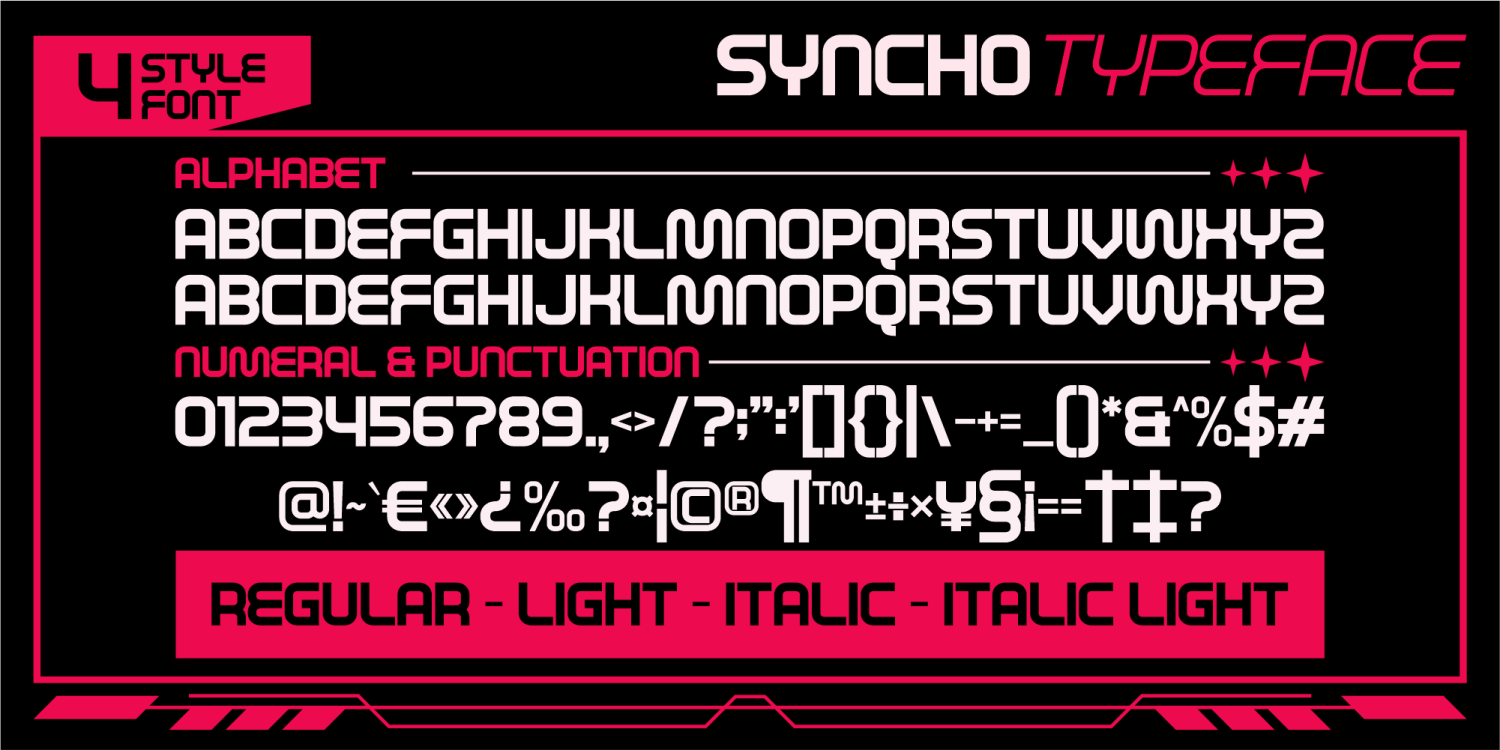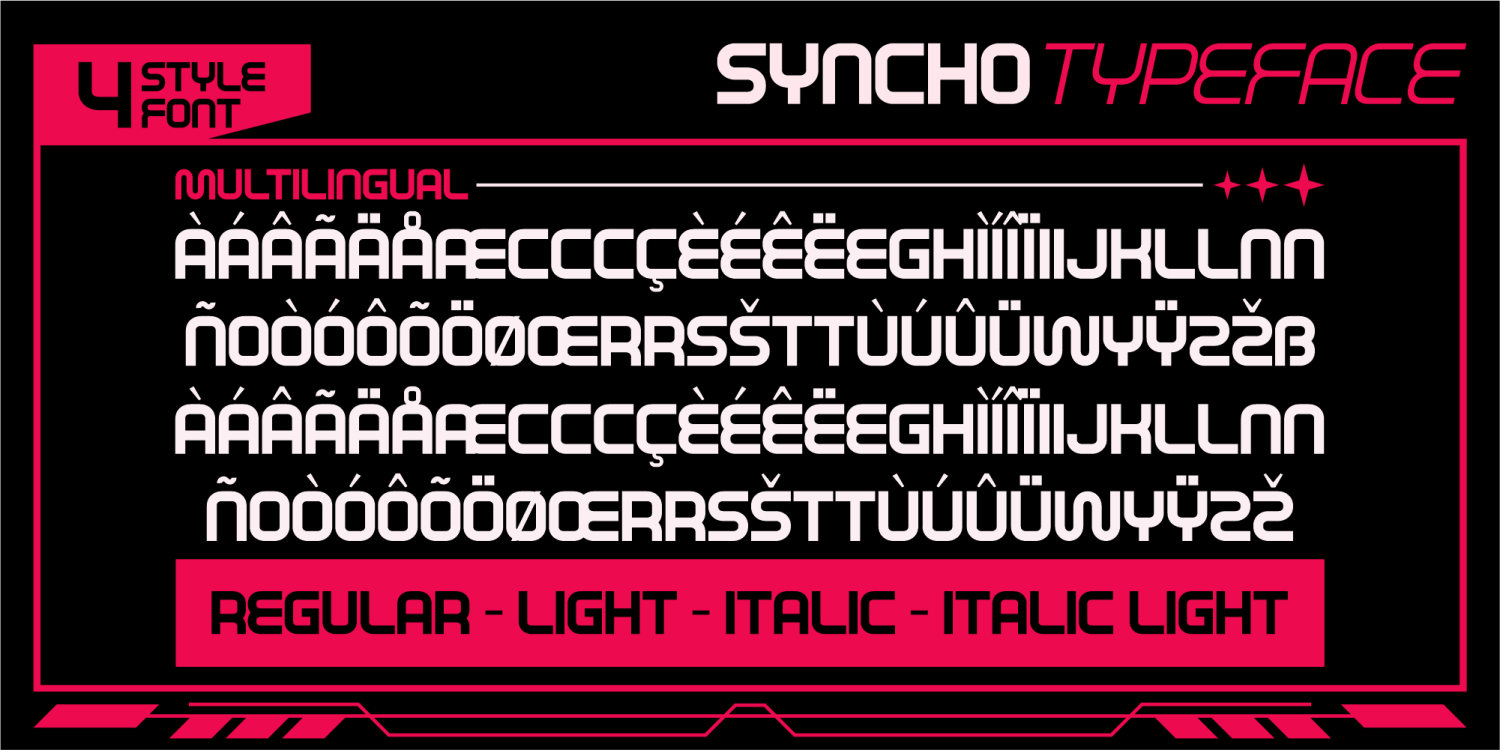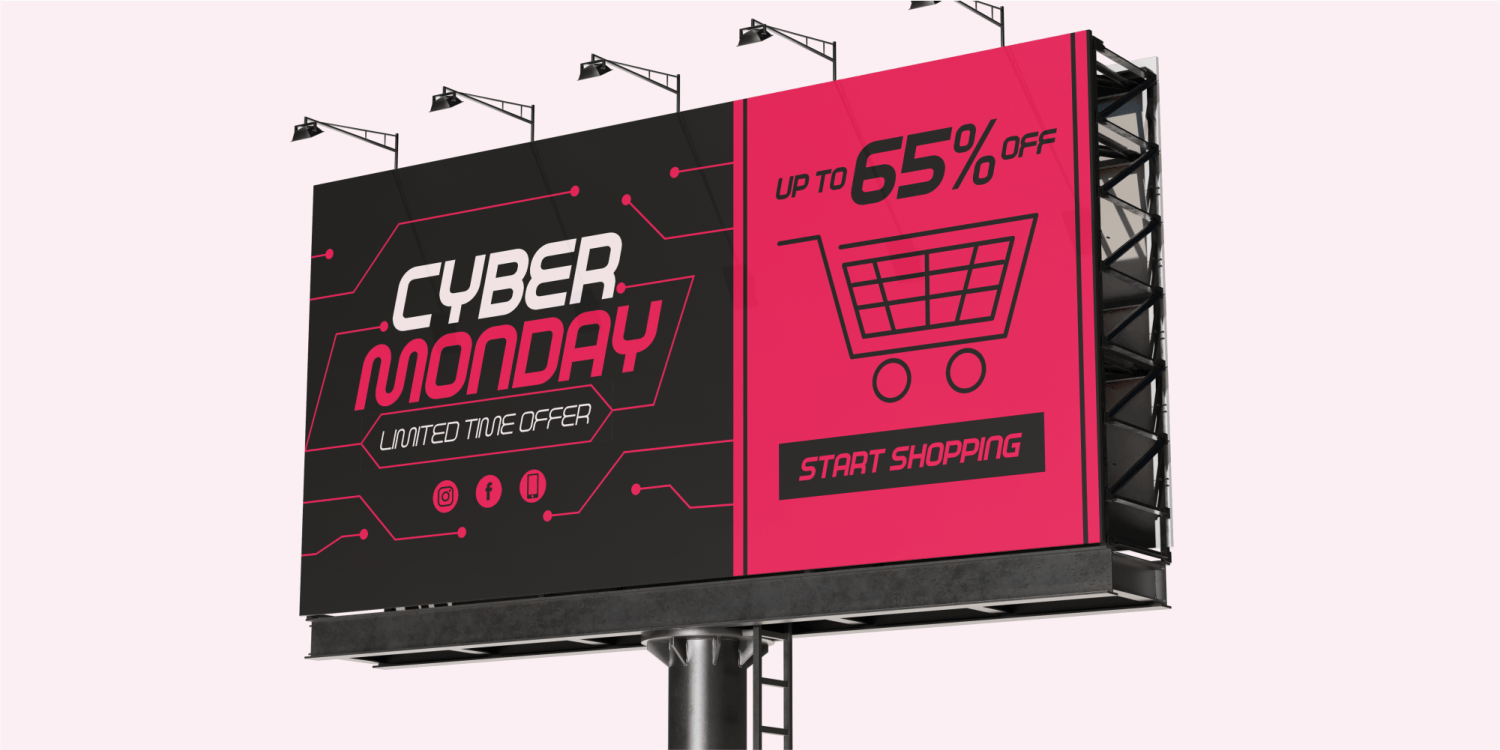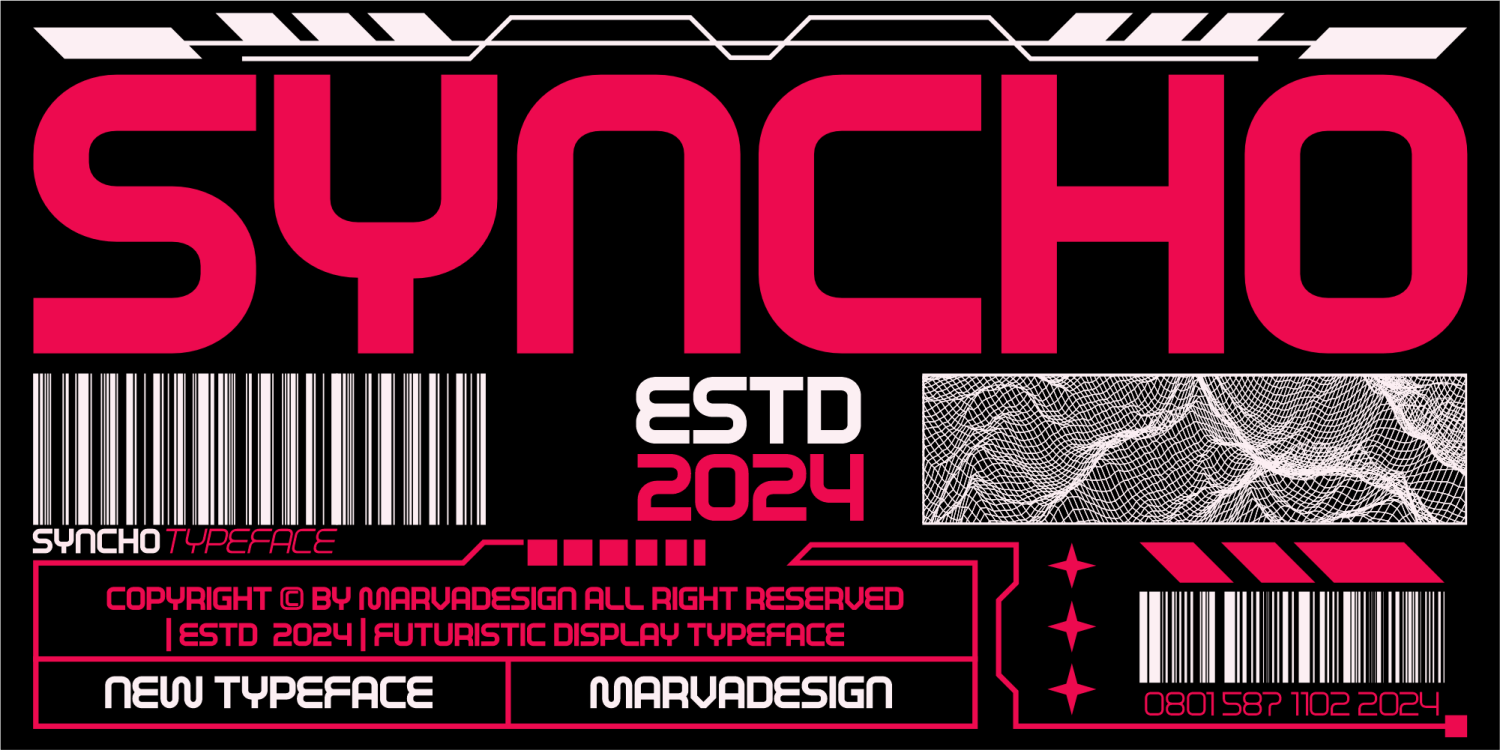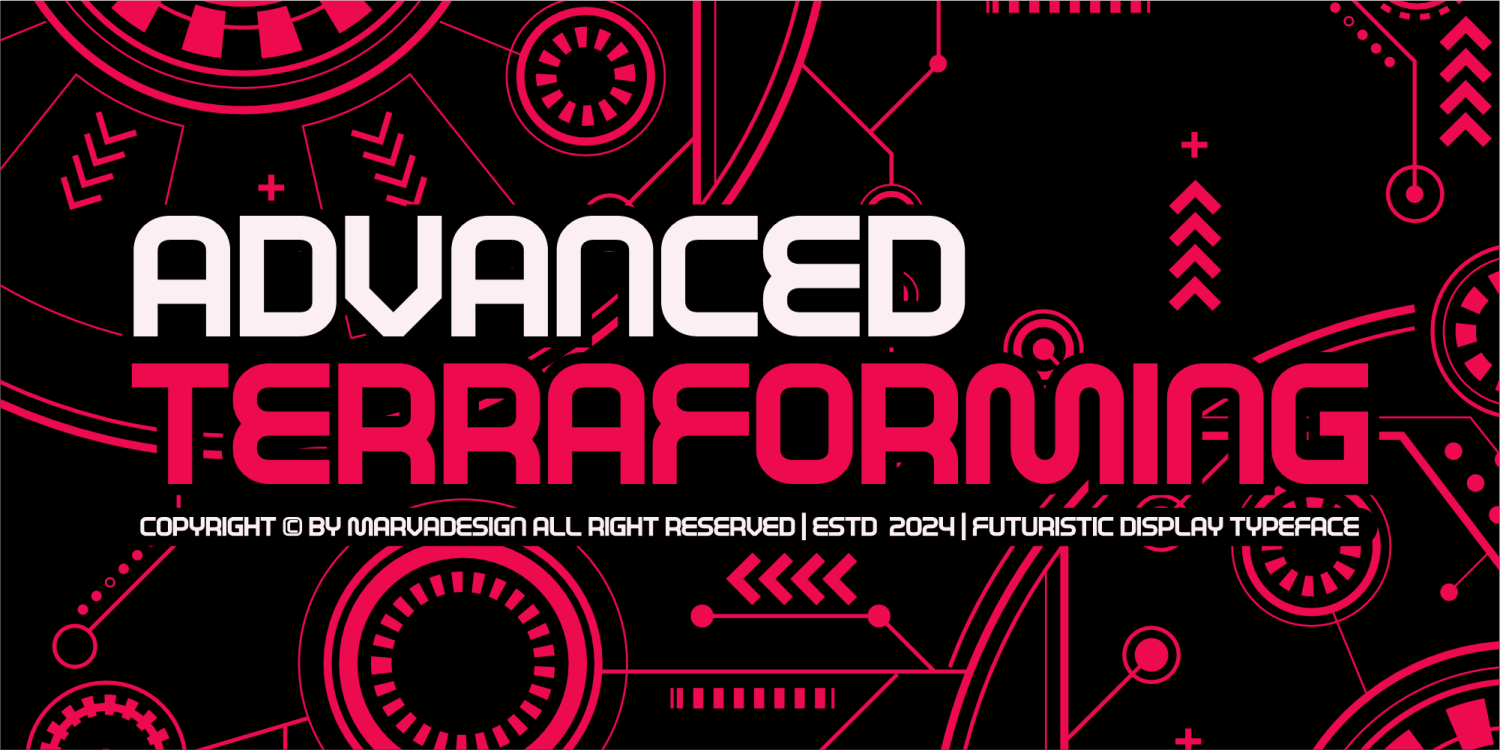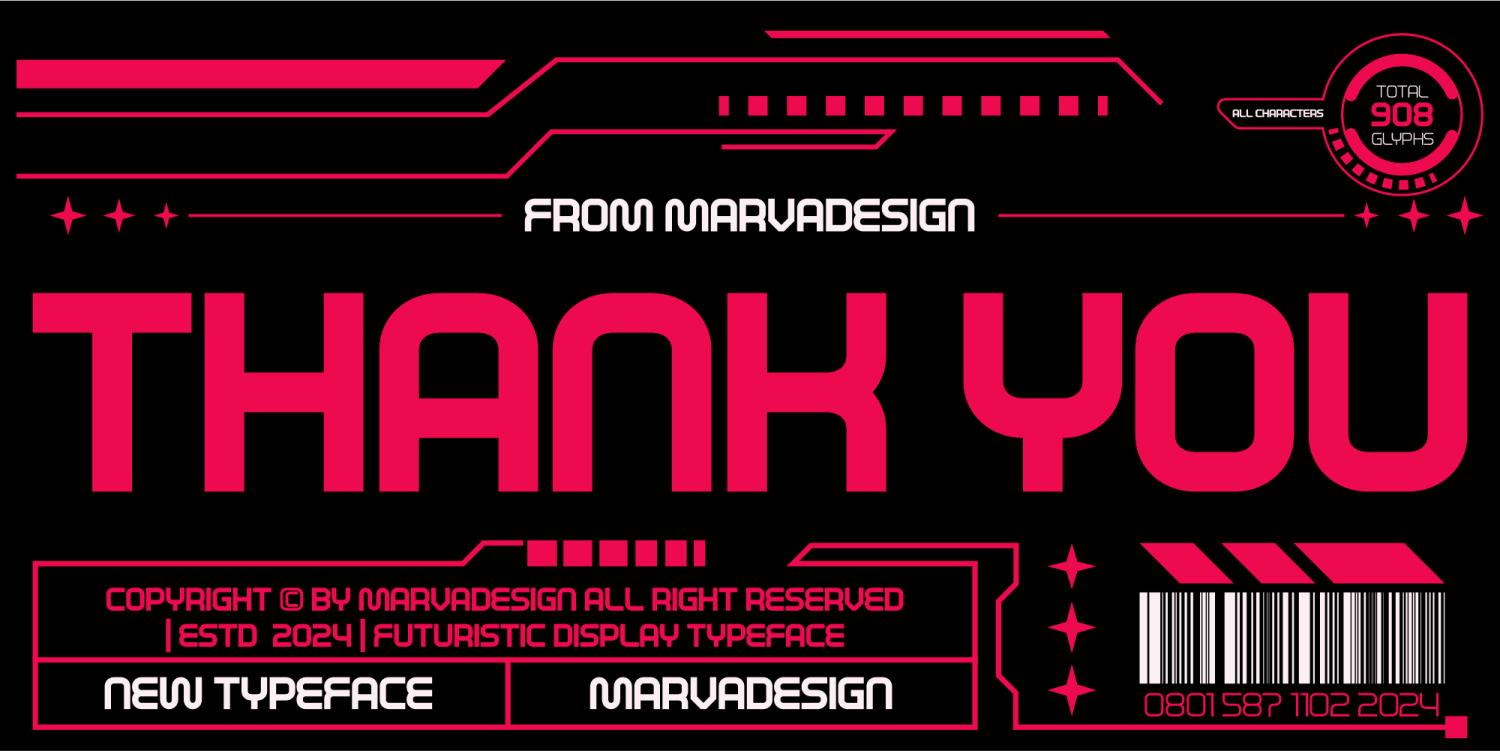
Syncho
Introducing Syncho typeface is a futuristic display font designed with a bold and modern aesthetic. Characterized by its geometric structure, sharp angles, and sleek rounded edges, this typeface embodies a high-tech, cyber-inspired look suitable for sci-fi themes, digital interfaces, and innovative branding. The font comes in four distinct styles—Regular, Light, Italic, and Italic Light—offering versatility for various design applications.
With a total of 908 glyphs, Syncho supports a wide range of multilingual characters, numerals, and punctuation, ensuring global usability. The carefully crafted letterforms exhibit a balanced combination of rigid structure and smooth curves, making them ideal for futuristic branding, technology-based designs, esports logos, and modern UI elements. Accentuated by a vibrant color scheme and digital-inspired visual elements, the Syncho typeface captures the essence of innovation and forward-thinking design.